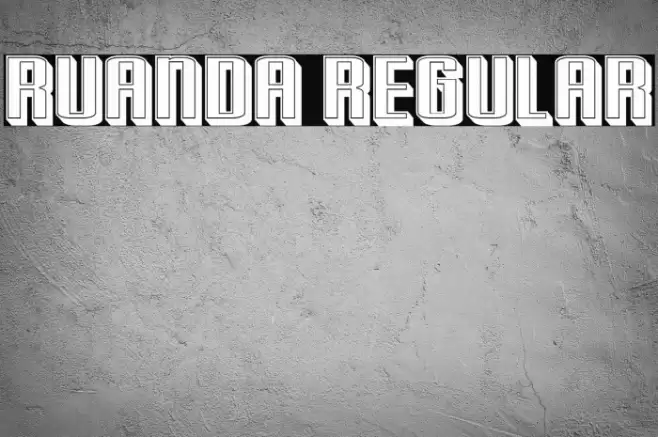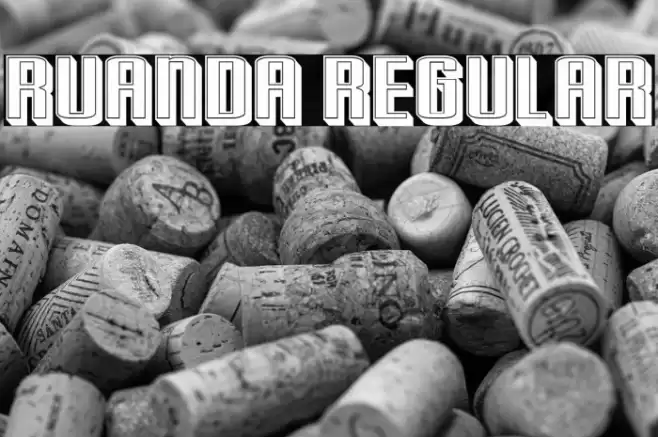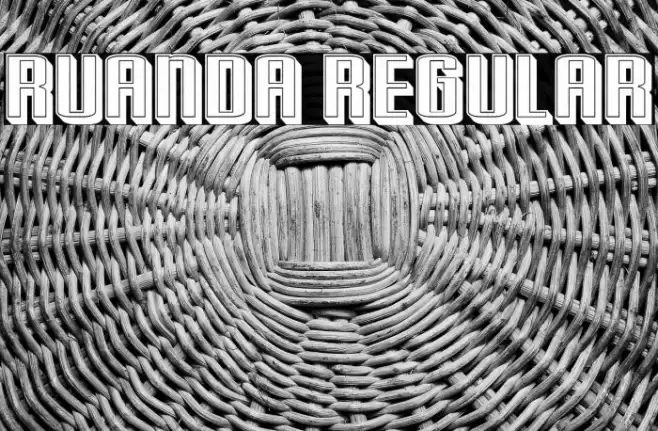
Ruanda Regular Font
Ruanda Regular Description
This font features a bold, geometric design with a strong presence. The characters are outlined with a thick border, creating a three-dimensional effect that adds depth and emphasis. The uppercase and lowercase letters maintain a consistent style, with sharp angles and clean lines. The numerals are equally bold, ensuring readability and impact. The special characters are designed to match the overall aesthetic, making this font suitable for a variety of uses where a striking and modern look is desired.
A bold, geometric font with a three-dimensional outline effect from Uncategorized fonts.
- Proposed Projects: Ideal for posters, headlines, branding, and any project requiring a strong visual impact.